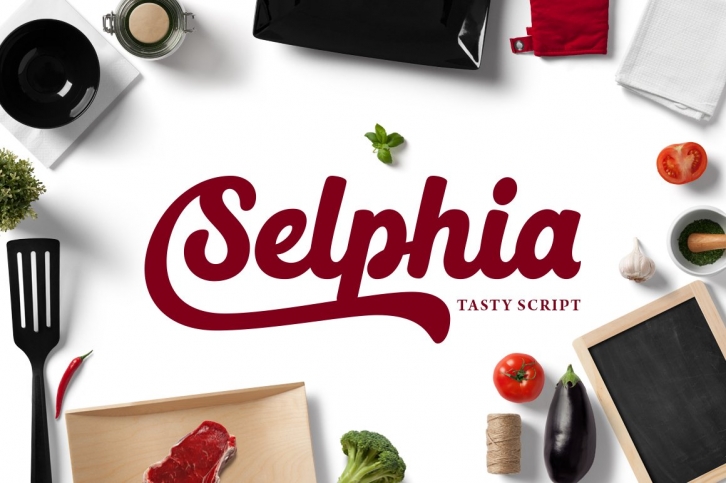
Selphia is a new script typeface designed with deliciously taste, so fruity, and milky. But you can be used for various purposes like tagline, t-shirt design, logos, quotes design etc. Best used in an Opentype-aware application such as Adobe Illustrator, Adobe InDesign, CorelDraw X6, etc. You can mix and match the alternates with opentype feature.
Opentype Feature:
- Contextual Alternates
- Stylistic Sets, and
- Swash